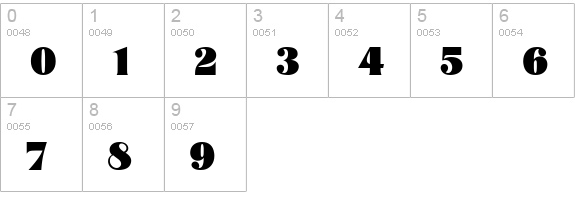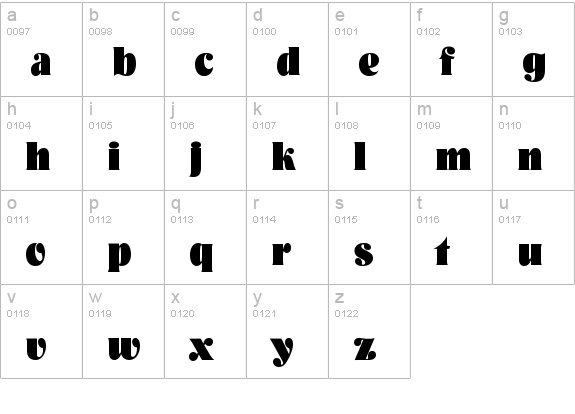
Pickwick Regular Font Details
Pickwick Regular is the standard, neutral variant in the Pickwick typeface family \xE2\x80\x94 well suited to general body text, paragraphs, and standard typographic work.
Introducing Pickwick Regular font, a timeless and versatile typeface that exudes elegance and charm. With its clean lines and balanced letterforms, this font is perfect for a wide range of design projects, from branding and advertising to editorial and packaging. Pickwick Regular font features a classic and readable design, making it suitable for both display and body text. Its well-defined characters and generous spacing ensure optimal legibility in any size or format, while its subtle personality adds a touch of sophistication to your designs. What sets Pickwick Regular font apart is not only its impeccable design but also its accessibility. It is freely available to download at FontsMarket.com, allowing you to incorporate this stunning typeface into your projects without any hassle. Whether you're a professional designer or a passionate hobbyist, this font is at your fingertips, ready to elevate your creative endeavors. Crafted with attention to detail, Pickwick Regular font offers a wide range of characters, including uppercase and lowercase letters, numerals, punctuation marks, and special symbols. Its extensive character set ensures versatility and adaptability, enabling you to effortlessly express your unique ideas and messages. Choose Pickwick Regular font to effortlessly capture attention, create a lasting impression, and make your designs stand out. With its timeless appeal and the convenience of being freely available for download at FontsMarket.com, this font is undoubtedly a valuable addition to your typographic toolkit. So don't miss out on the opportunity to unleash your creativity with this exceptional typeface.